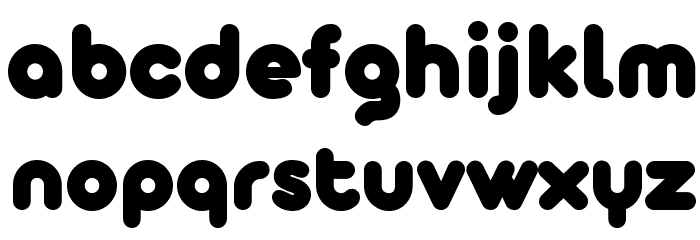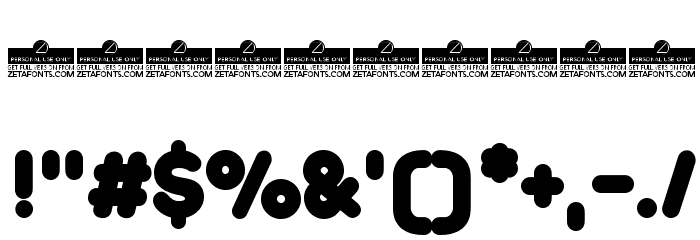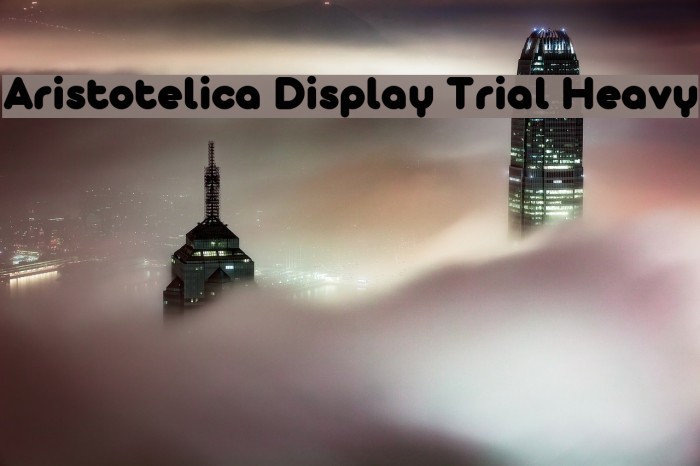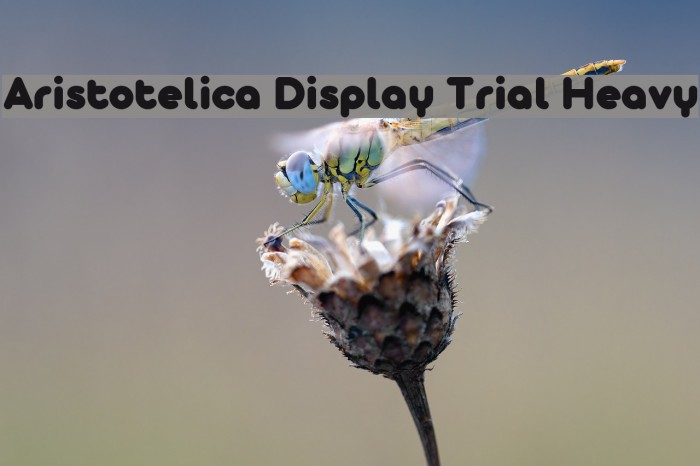
Aristotelica Display Trial Heavy Font
This font features a bold and rounded style with a modern and playful aesthetic. The characters are uniformly thick, creating a strong visual impact. The rounded edges and smooth curves give it a friendly and approachable feel, making it suitable for a variety of design projects. The uppercase and lowercase letters maintain a consistent weight, ensuring readability and balance. The numerals and special characters are designed to match the overall style, providing a cohesive look across all text elements. This font is ideal for projects that require a bold statement with a touch of whimsy.
A bold, rounded font with a modern and playful style.
- Font: Aristotelica Display Trial Heavy
- Proposed Projects: Ideal for branding, packaging, children's books, and playful advertising campaigns.